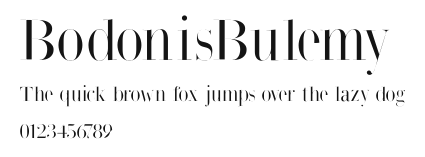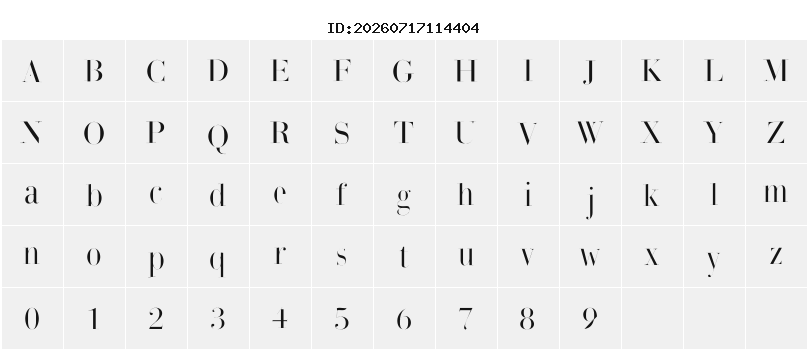
BodonisBulemy Preview
• Font Name: BodonisBulemy
About BodonisBulemy.ttf
BodonisBulemy.ttf is a modern, elegant sans-serif font designed for ultimate readability and visual harmony. Perfect for branding, headlines, web design, and print materials.